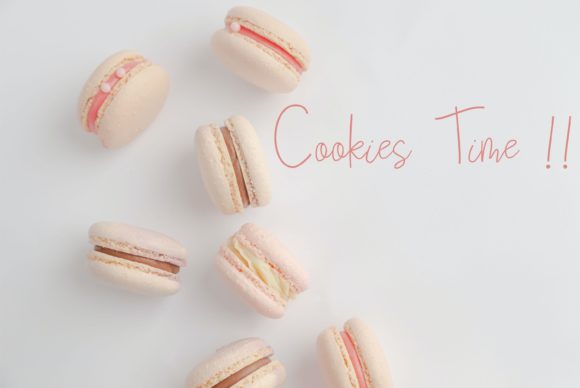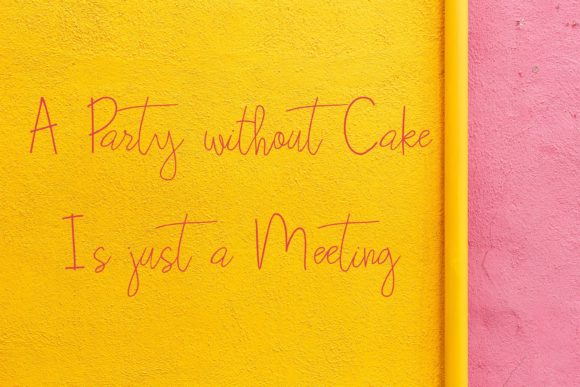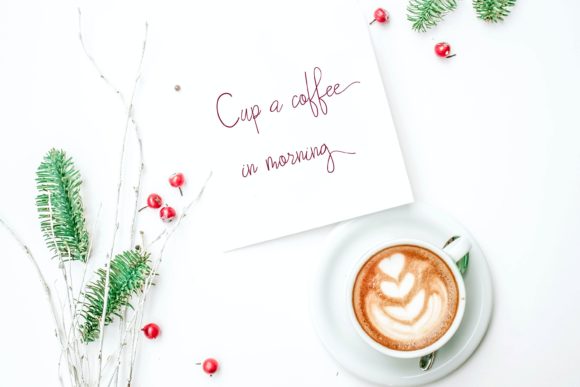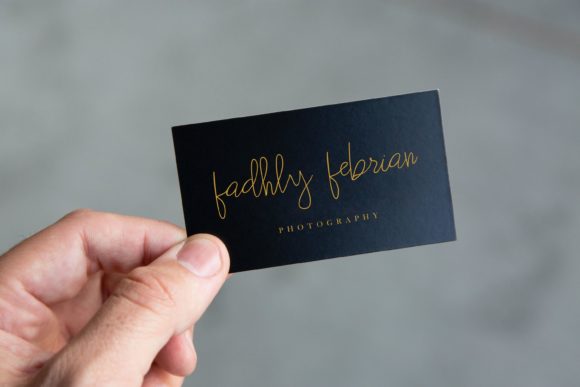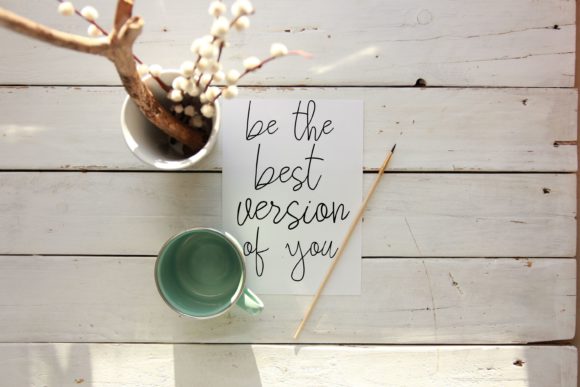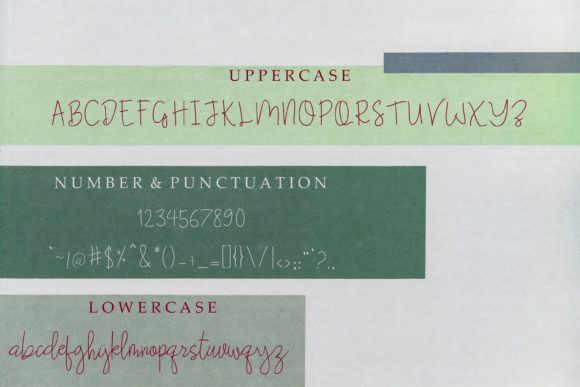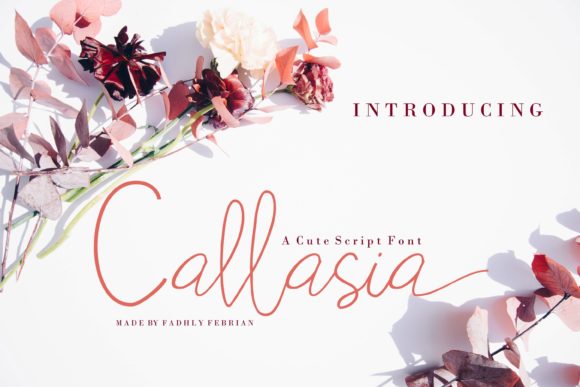
Introducing Callasia Font: Elevate Your Designs with Delicate Elegance
Are you on the hunt for a font that exudes sophistication and style? Look no further than Callasia Font, a delicate and fashionable script font designed to elevate your branding projects to new heights. Whether you’re working on logos, t-shirt printing, creative products, or any other design endeavor, Callasia is the perfect choice.
What Makes Callasia Font So Special?
Callasia Font boasts a unique blend of elegance and playfulness, making it an ideal fit for designers and crafters seeking to add a touch of refinement to their work. This beautiful script font is crafted to convey a sense of luxury, sophistication, and creativity, allowing you to create stunning designs that capture the essence of your brand.
Key Features of Callasia Font
• Delicate and Fashionable Design: Callasia Font features a slender, cursive design that adds a touch of elegance to any project.
• PUA Encoded: This font is PUA (Private Use Area) encoded, which means you can easily access all glyphs and swashes, giving you maximum flexibility and creative control.
• Wide Range of Applications: From logos and t-shirt printing to creative products and more, Callasia Font is versatile enough to be used in various design projects.
Callasia Font offers numerous benefits for designers and crafters, including:
• Ease of Use: With its PUA encoding, you can effortlessly access and use the font’s extensive range of glyphs and swashes.
• High-Quality Design: Callasia Font is crafted with precision and attention to detail, ensuring that your designs look professional and polished.
• Time-Saving: The font’s versatility and wide range of applications save you time and effort, as you can use it across multiple projects.
• Pair it with Other Fonts: Combine Callasia Font with complementary fonts to create visually appealing and harmonious designs.
• Experiment with Swashes: Take advantage of the font’s swashes to add a personal touch to your designs and make them stand out.
• Play with Colors: Callasia Font looks stunning in a variety of colors, so don’t be afraid to experiment and find the perfect hue for your design.